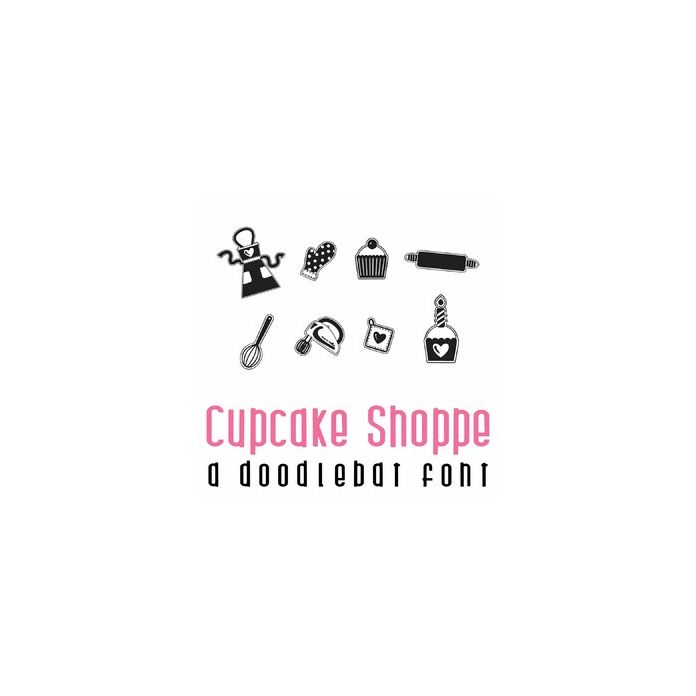
This fun full-color doodlebat font features 26 adorable cupcakes and baking items perfect for cards, crafts, gifts, scrapbook pages, planner stickers, and more!